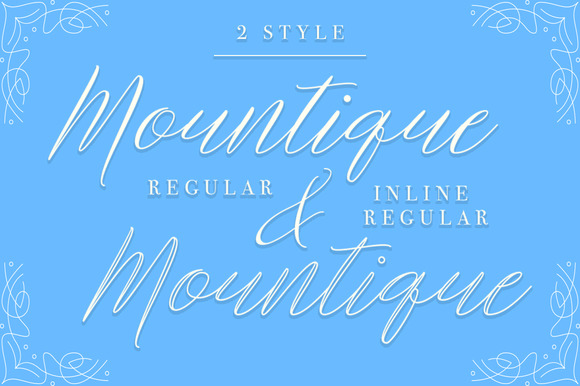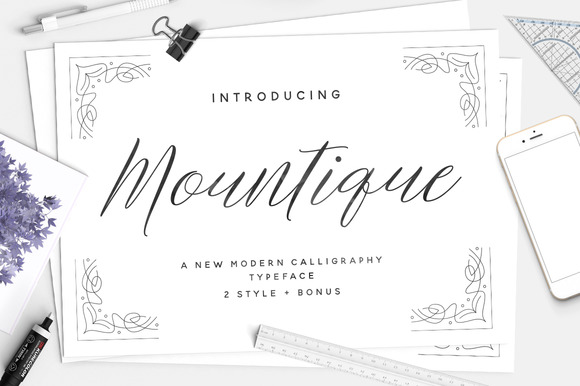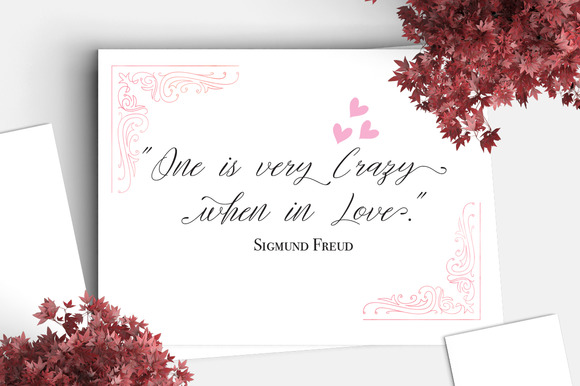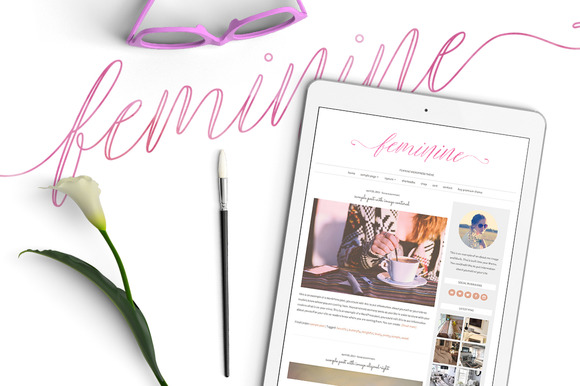
Introduction to Mountique Font
Do you remember the feeling of holding a pen to paper, watching your handwriting transform into a beautiful work of art? For designers, this moment is a constant source of inspiration, driving us to create high-quality designs that capture the essence of our vision. The right font can make all the difference in a creative project, elevating it from ordinary to extraordinary.
That’s where Mountique Font comes in – a modern calligraphy typeface that combines the elegance of copperplate with the sophistication of contemporary design. With its classic touch and transparent background, this font is the perfect design resource for anyone looking to add a touch of sophistication to their work.
Key Features of Mountique Font
- Features a unique, modern design with a transparent background for flexibility
- Supports various languages, making it a valuable resource for global design projects
- Perfect for use in digital designs, such as logos, icons, and graphics, as well as print materials like business cards and brochures
Honest Review: Mountique Font
I recently had the chance to work with the Mountique Font, and I must say it’s a great addition to any designer’s toolkit. As a design resource, it’s definitely worth considering for your next creative project.
One of the things that works well with the Mountique Font is its high quality. The font is well-designed and looks great on both transparent backgrounds and solid colors. It’s also a great choice for anyone looking for a unique and stylish font.
Here are some of the things I like about the Mountique Font:
- High quality design
- Looks great on transparent backgrounds
- Not as versatile as some other fonts
- May not be suitable for all types of creative projects
Overall, I’m impressed with the Mountique Font. It’s a solid choice for designers who want a high-quality, unique font for their creative project. Just be aware of its limitations, and you’ll be all set.
Mountique Font is commonly used for creating logos, graphics, and other design elements for business cards, brochures, and websites. It’s also great for creating social media graphics, presentations, and other visual content.
Getting the Most Out of Mountique Font
To get the most out of Mountique Font, experiment with different font sizes, colors, and combinations. You can also use it with a transparent background to create a more modern and sleek look. With Mountique Font, the possibilities are endless, and it’s a great addition to any designer’s toolkit.
Yes, the Mountique Font is designed to work seamlessly with transparent backgrounds. This makes it an ideal choice for designers who need a high-quality font that can be used in a variety of creative contexts, from web design to graphic design.